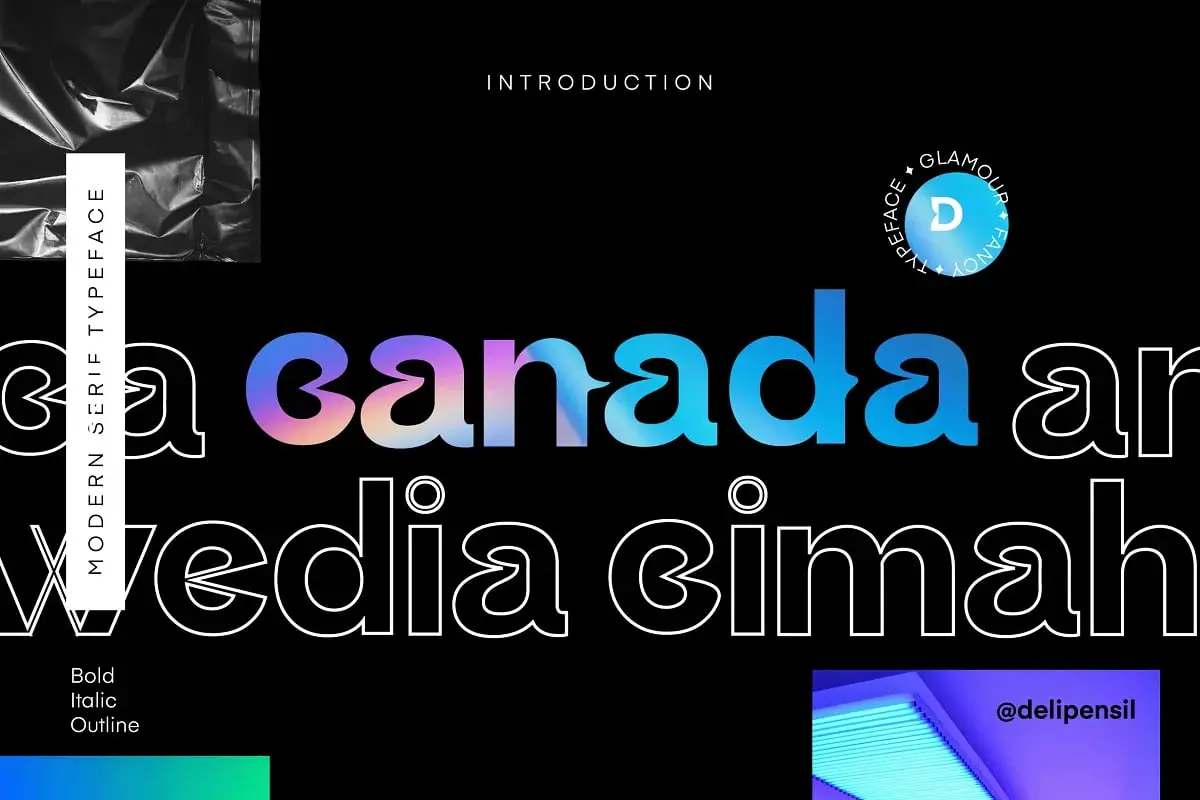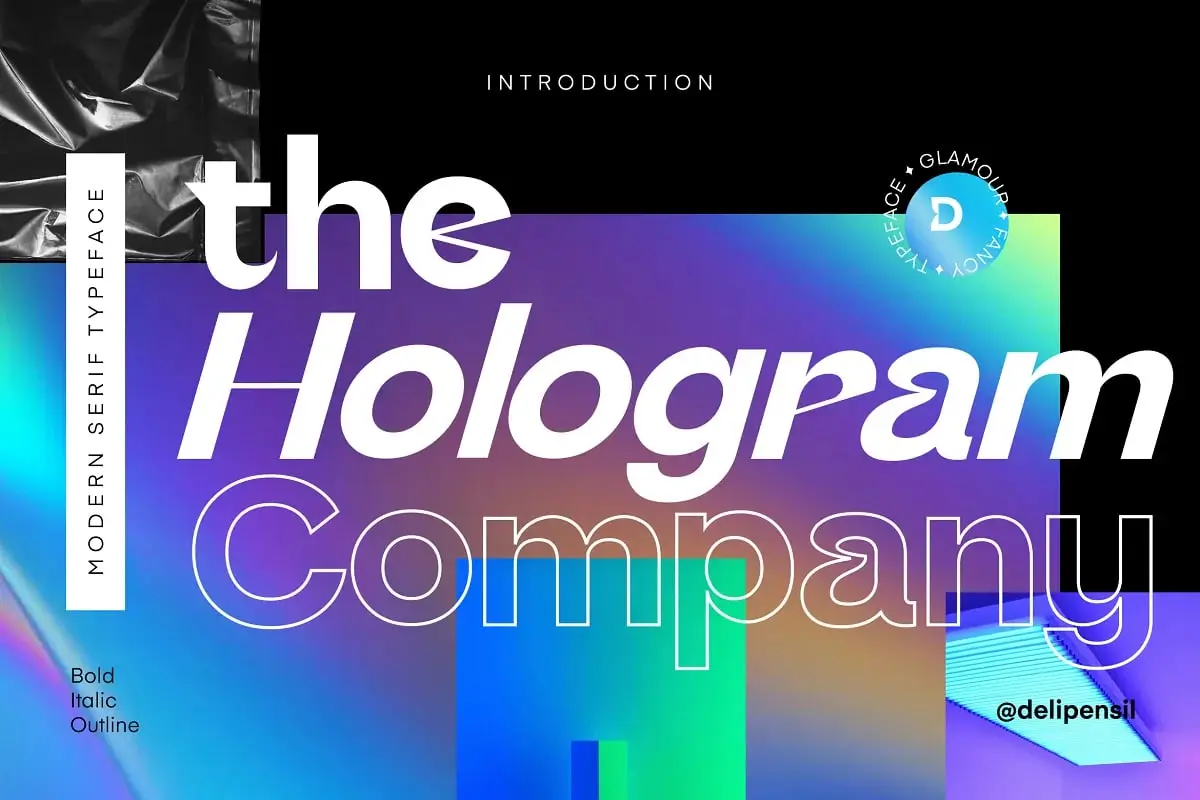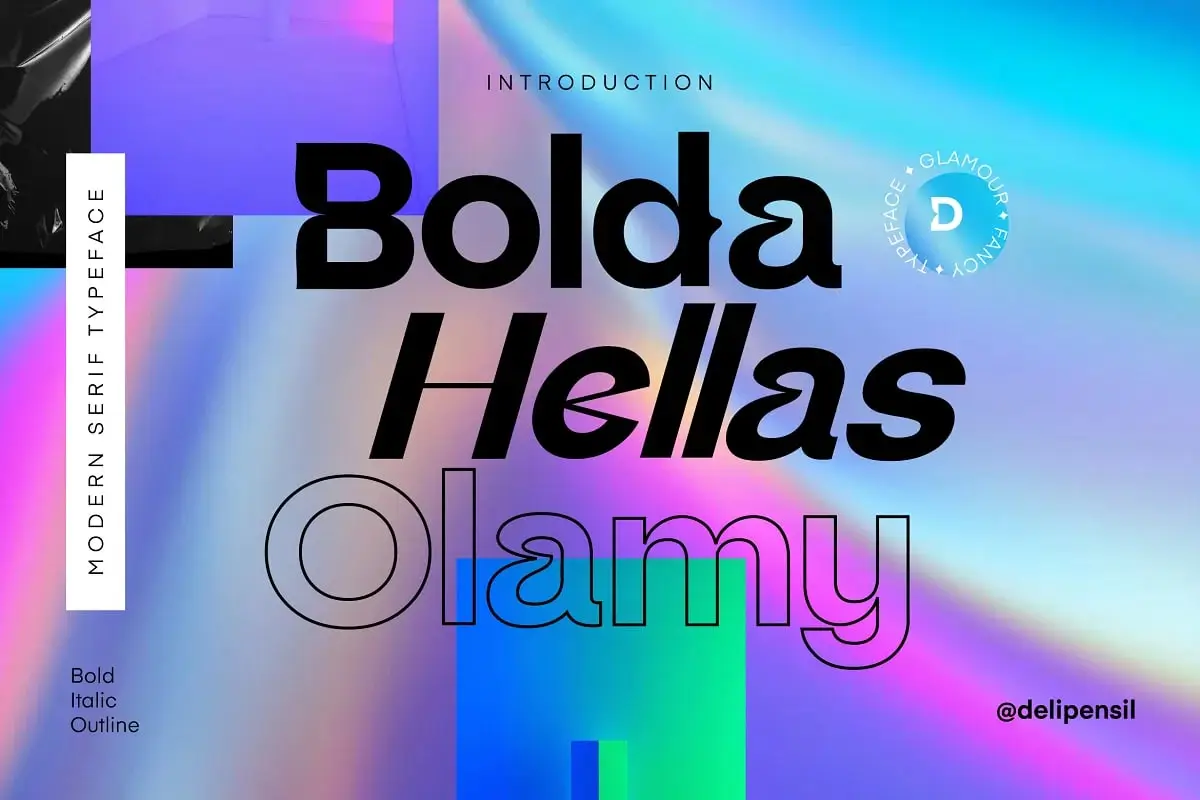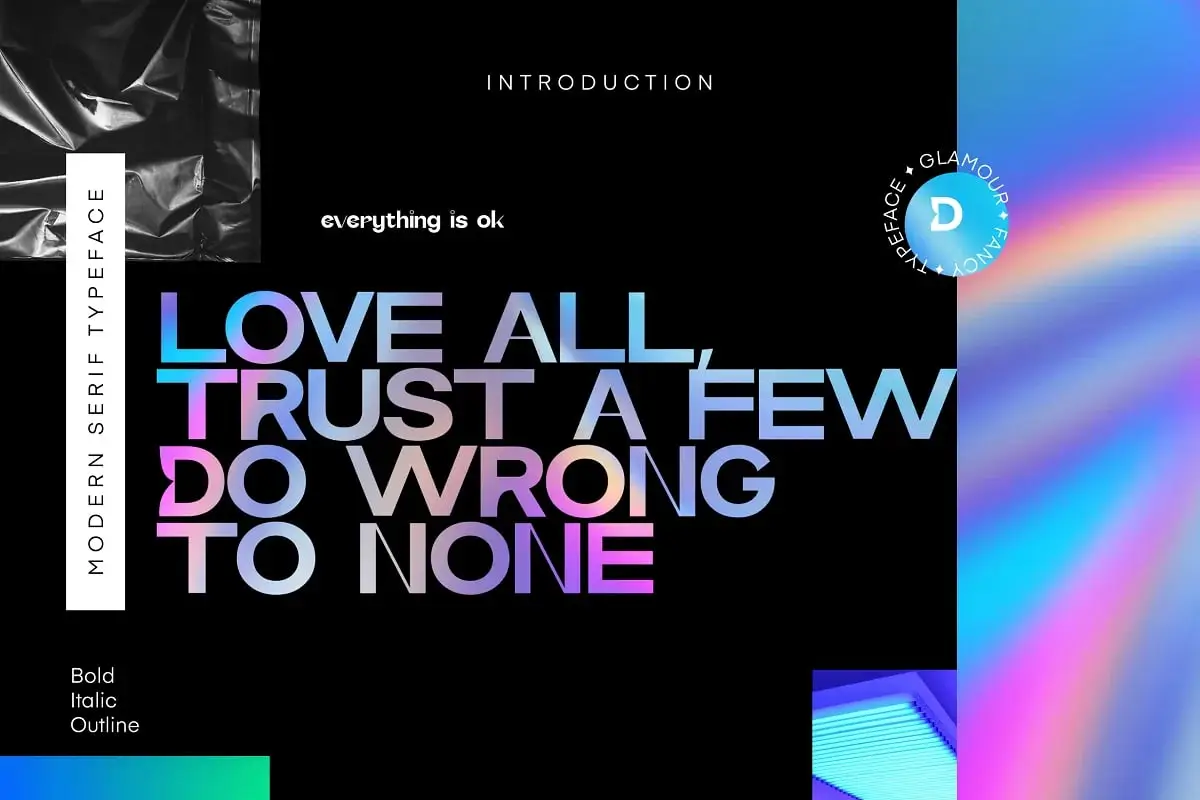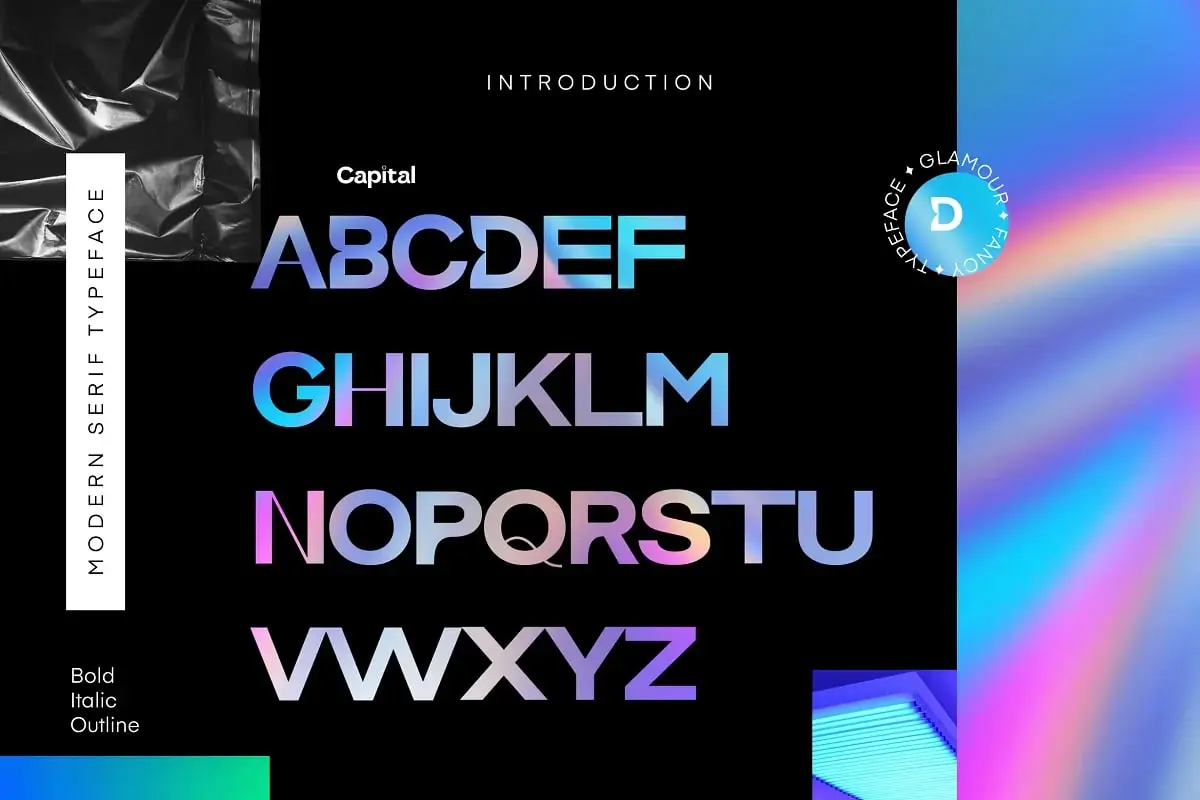
Coldag Modern Serif Font
Introducing the Coldag Modern Serif Font, a sophisticated typeface that combines classic elegance with contemporary design. Perfect for a variety of applications, this font is ideal for branding, logos, web design, print materials, and user interfaces.
• Stylish serif design with a modern twist
• Multiple weights for versatile usage
• Clear readability for both digital and print formats
Utilize this font for elegant branding projects, eye-catching headlines, and sophisticated print layouts. Its modern aesthetic makes it suitable for both professional and creative endeavors.